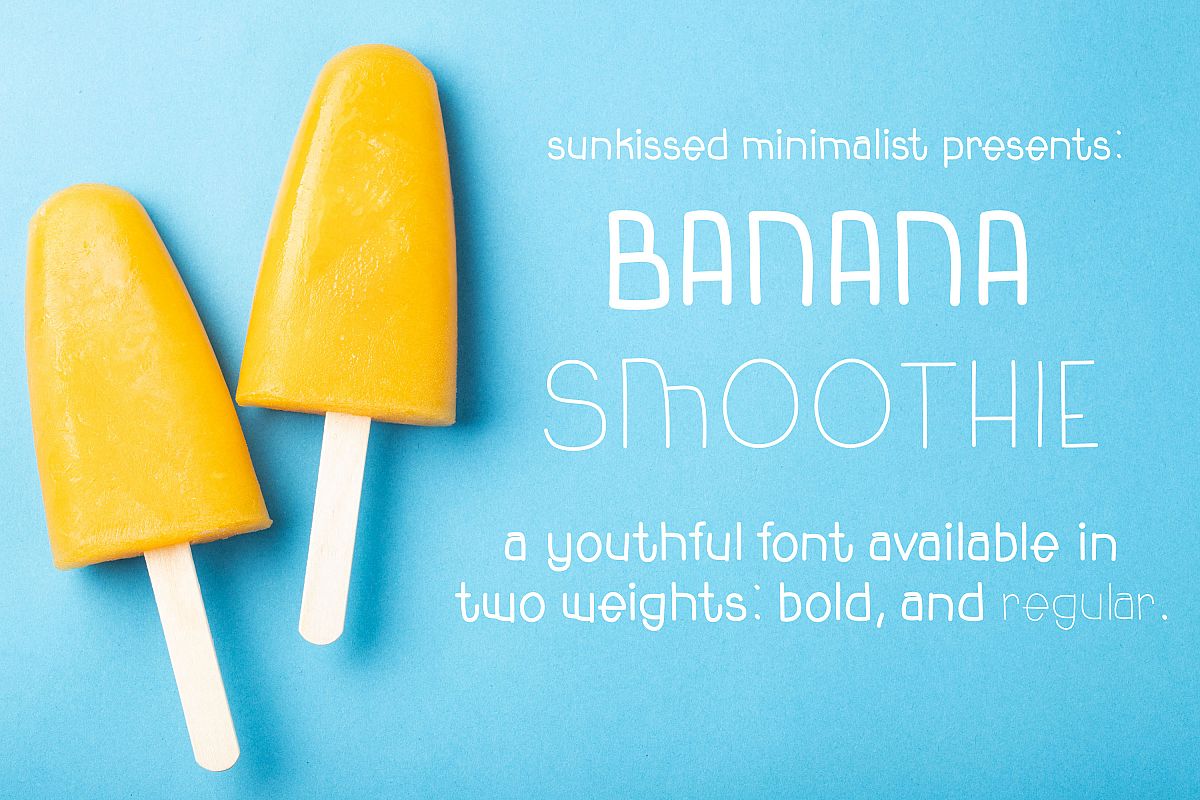
Banana Smoothie
Banana Smoothie is a playful, funky handwritten font that embodies everything fun about being a kid. This font is perfect for:
• greeting cards
• invitations
• posters
• t-shirt designs